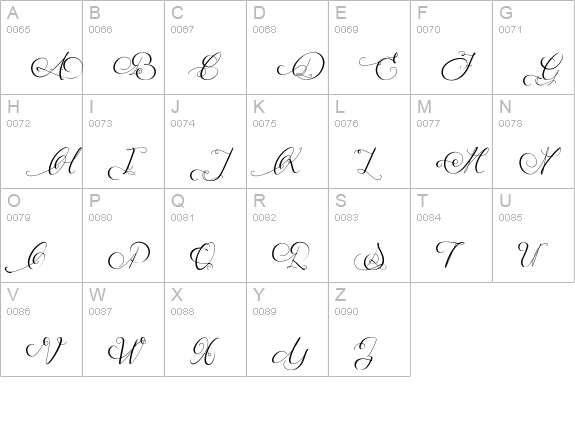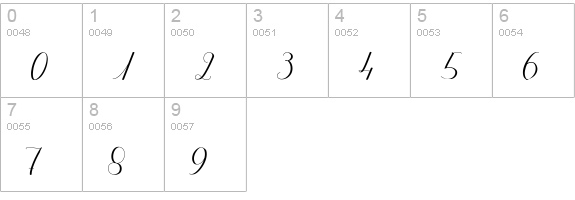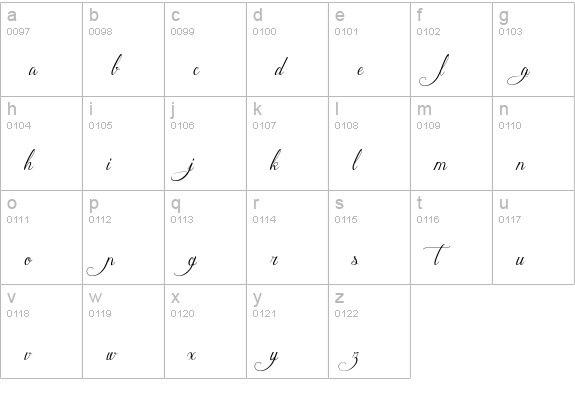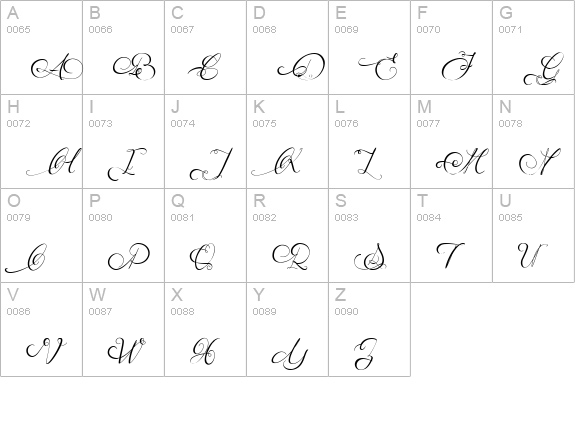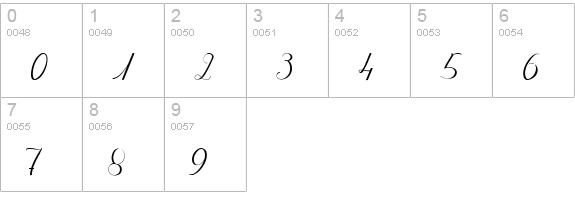
Mathilde Castleland Font Details
Introducing Mathilde Castleland Font, a stunningly elegant typeface that exudes sophistication and grace. This exquisite font combines intricate details with a timeless appeal, making it the perfect choice for any project that requires a touch of class. Mathilde Castleland Font features beautifully crafted letterforms, with delicate curves and stylish flourishes that add a touch of opulence to your designs. Its versatility allows it to be used for various purposes, from branding and logo design to invitations and editorial layouts. One of the most remarkable aspects of Mathilde Castleland Font is that it is available for free download at FontsMarket.com. Yes, you read that right! This exquisite font can be yours without spending a single penny. FontsMarket.com is a reputable website that offers a wide range of high-quality fonts, and Mathilde Castleland Font is no exception. With its freely available download, Mathilde Castleland Font opens up a world of possibilities for designers, allowing them to effortlessly create stunning visuals without breaking the bank. Whether you're a professional designer or a DIY enthusiast, this font is a valuable asset that can elevate your projects to new heights. So why wait? Head over to FontsMarket.com and download Mathilde Castleland Font today. Experience the beauty and elegance of this remarkable typeface and unleash your creativity like never before. With Mathilde Castleland Font, the possibilities are endless, and the results are guaranteed to leave a lasting impression.